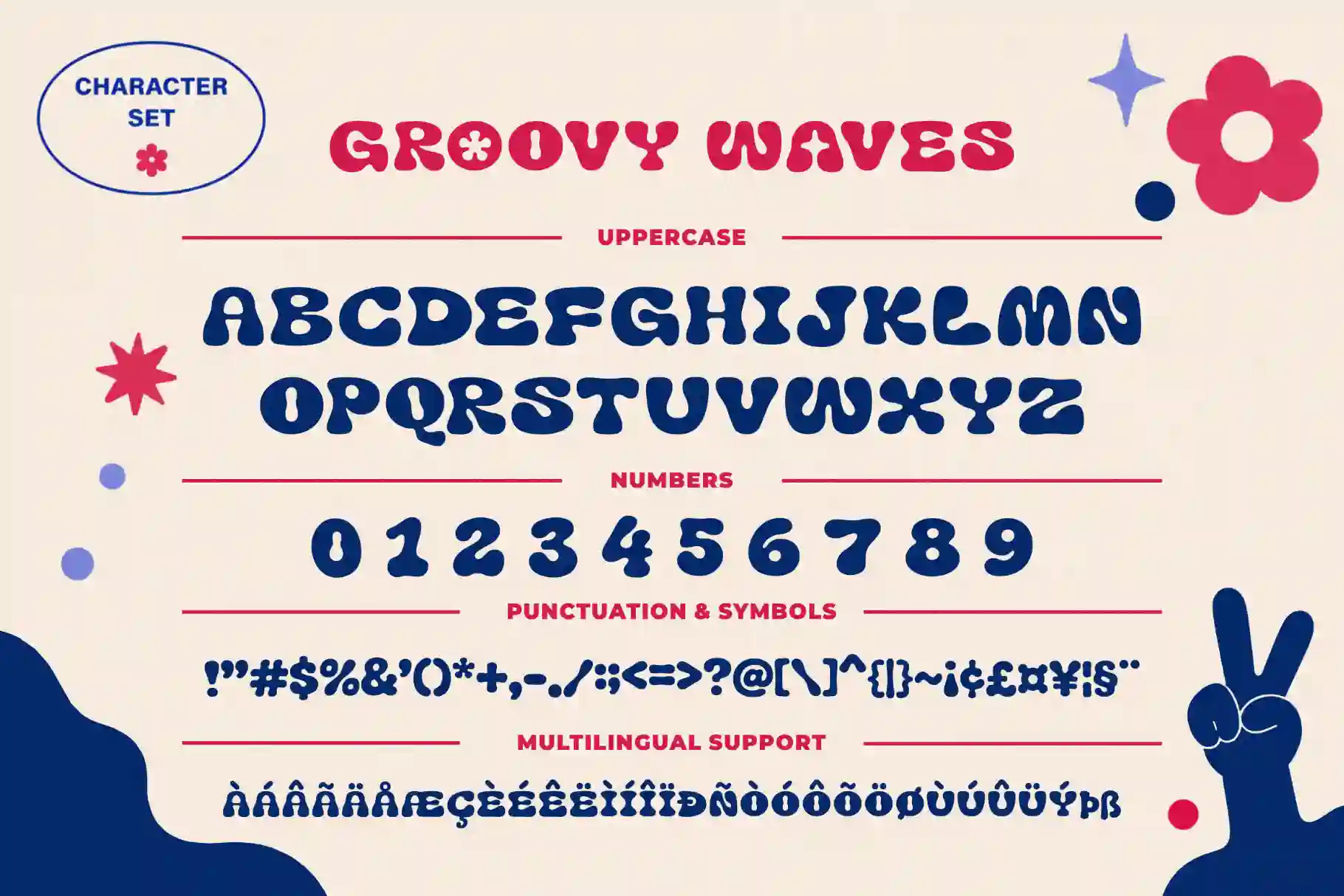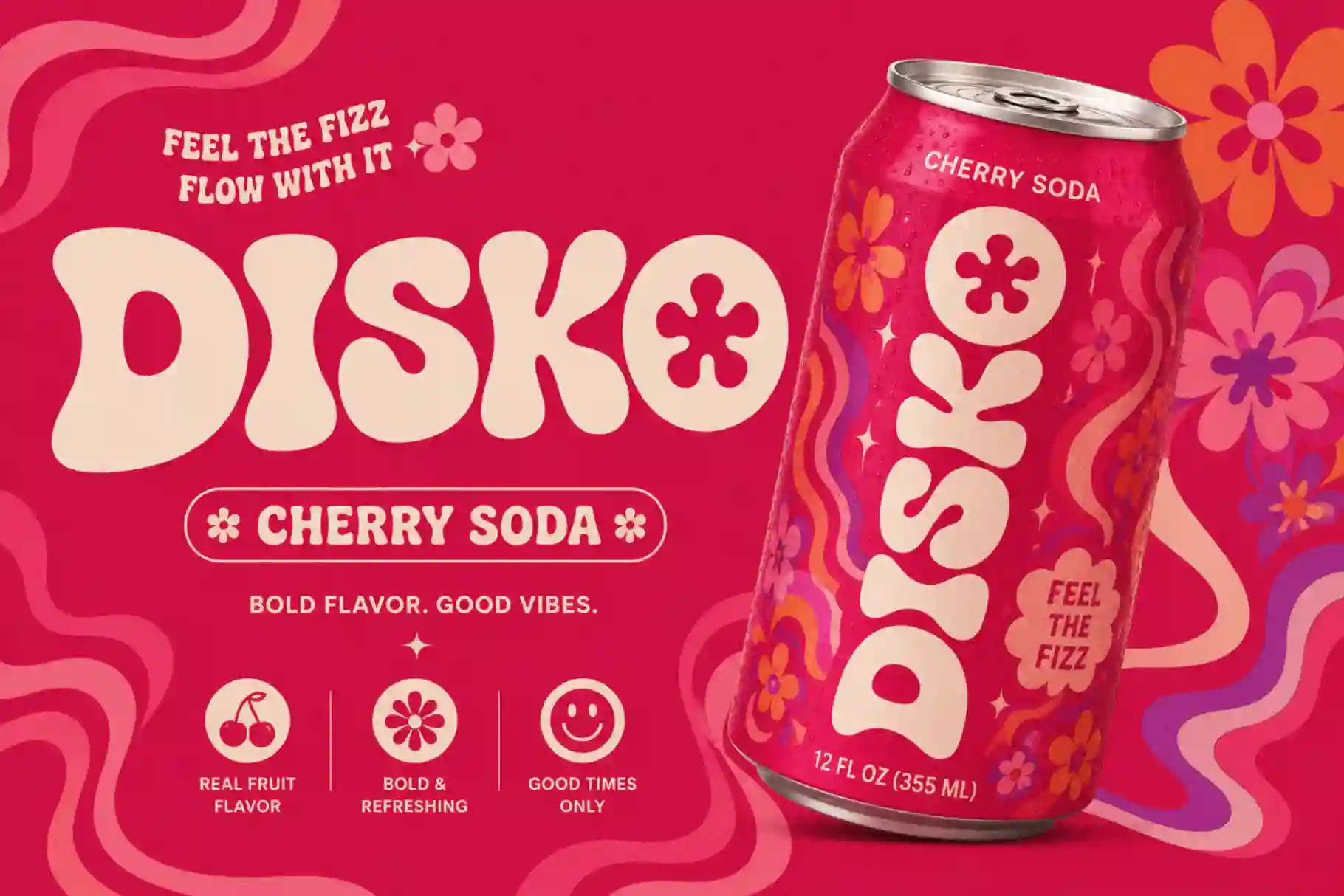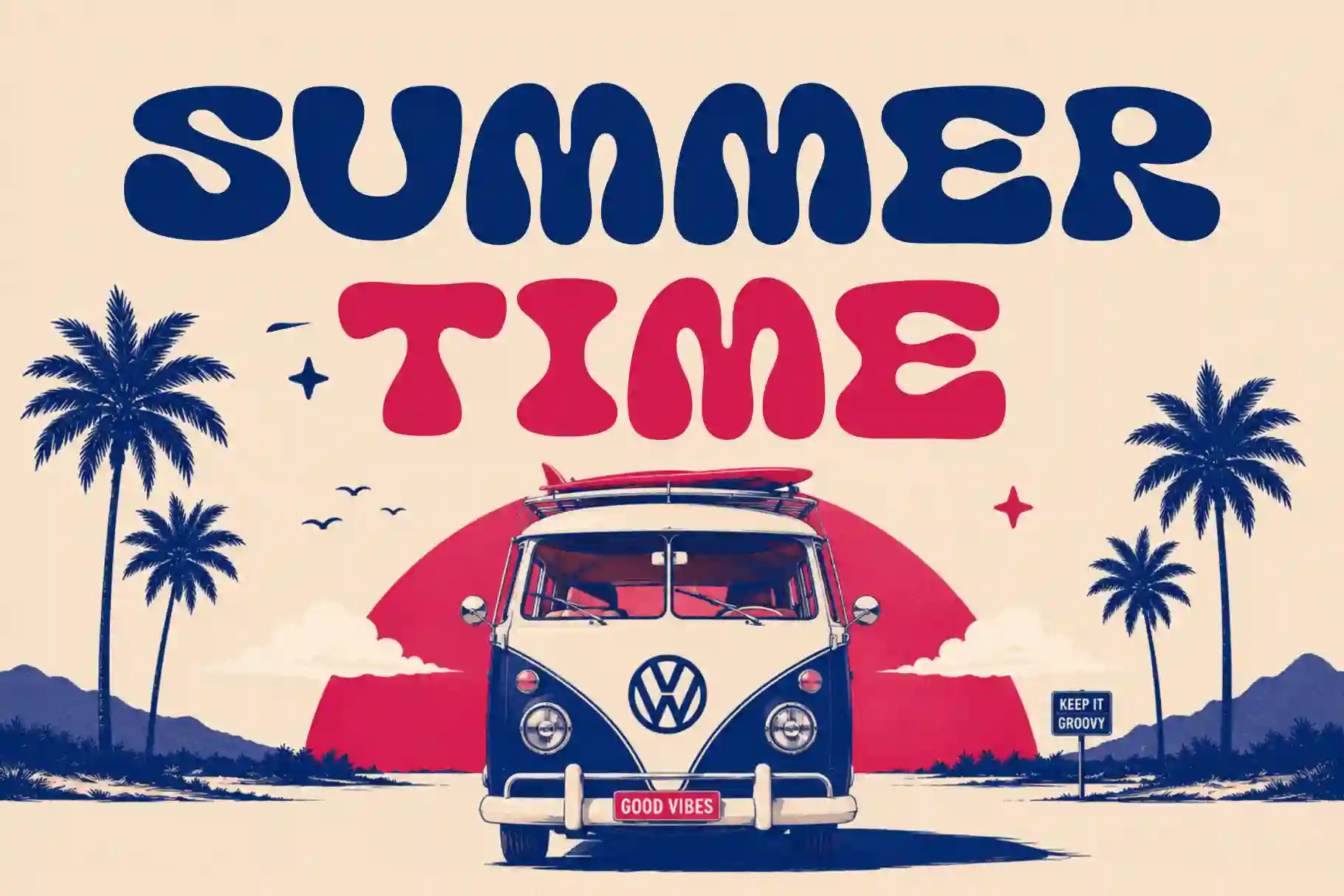
Psychedelic Retro Font for Bold Vintage Typography
Typography has the power to instantly bring emotion and nostalgia into a design, and Groovy Waves – Psychedelic Retro Font is built to do exactly that. This psychedelic retro font combines groovy 70s-inspired curves with bold wavy letterforms to create typography that feels expressive, playful, and unforgettable. Whether you are designing vintage posters, music artwork, branding, café menus, or album covers, Groovy Waves gives your project an authentic retro personality.
Inspired by psychedelic culture, vintage signage, and funky retro aesthetics, this psychedelic retro font delivers a handcrafted vibe while remaining highly readable and versatile for modern creative projects.
Psychedelic Retro Font with Groovy Personality
Groovy Waves is designed for creatives who want typography with soul and movement. Unlike ordinary retro fonts, this psychedelic retro font features flowing wave-inspired forms that instantly create a nostalgic atmosphere. The exaggerated curves and funky details capture the essence of classic 70s visuals while still feeling fresh for today’s branding and digital media.
This font works beautifully for café branding, retro packaging, YouTube thumbnails, vinyl-inspired artwork, and vintage promotional posters. If your project needs bold energy and artistic expression, Groovy Waves is the perfect choice.
Key Features of Groovy Waves – Psychedelic Retro Font
Professional designers need fonts that are not only stylish but also flexible and functional. Here are the features included in Groovy Waves – Psychedelic Retro Font:
- All Caps Support
- Numbers & Punctuations Included
- Multilingual Support
- Bold Psychedelic Style
- Retro Wavy Letterforms
- Perfect for Vintage Branding & Posters
- High Readability for Display Typography
This psychedelic retro font is carefully crafted to ensure strong visual impact while remaining practical across print and digital applications.
Why Designers Love Groovy Waves – Psychedelic Retro Font
Designers love Groovy Waves because it offers the perfect balance between nostalgia and usability. Many retro fonts look decorative but become difficult to use in real-world projects. Groovy Waves solves this problem by combining artistic psychedelic forms with clear structure.
Here’s why designers enjoy working with this psychedelic retro font:
- Instantly creates a retro atmosphere
- Perfect for bold display typography
- Works for both print and digital media
- Strong branding personality
- Easy to pair with brush and sans serif fonts
- Great for music, café, and vintage-themed projects
Its groovy wave structure makes every headline feel dynamic and alive.
Psychedelic Retro Font for Posters and Album Artwork
One of the best uses for Groovy Waves is poster design. This psychedelic retro font was made for large typography that needs to attract attention instantly. Whether you are creating music festival posters, retro concert artwork, vinyl covers, or artistic event promotions, Groovy Waves gives your visuals authentic vintage energy.
The flowing psychedelic shapes create movement inside every word, making titles feel expressive and memorable. This makes Groovy Waves especially powerful for music branding, indie artwork, and nostalgic visual identities.
Psychedelic Retro Font for Branding and Café Design
Retro branding continues to dominate modern design trends, especially in café and lifestyle branding. Groovy Waves works perfectly as a psychedelic retro font for coffee shop logos, café menus, packaging, and creative signage.
Its nostalgic aesthetic creates warmth and personality while maintaining bold readability. Designers often use this font for brands that want to feel artistic, relaxed, and expressive. If you are building a visual identity inspired by vintage culture, Groovy Waves can instantly strengthen your branding.
Font Pairing Ideas for Groovy Waves
Groovy Waves becomes even more versatile when paired with complementary fonts. Here are recommended font pairings from Figuree Studio:
Pairing this psychedelic retro font with bold sans serif or expressive brush fonts creates balanced and visually exciting compositions for branding and advertising.
- Character Set: All Caps, Numbers, Punctuations